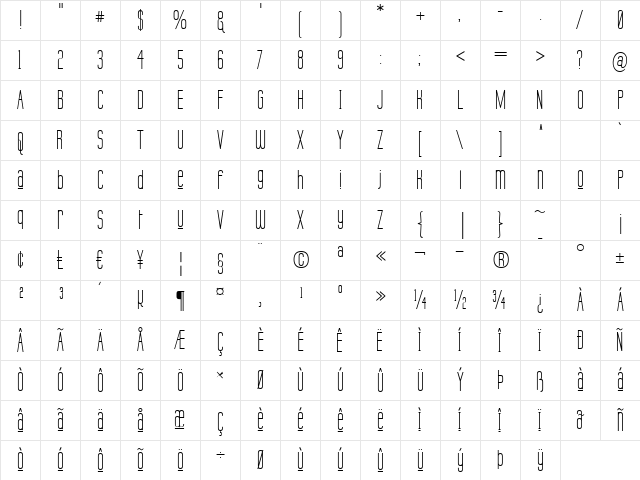
Labtop Unicase Upper Regular
Complete Labtop Unicase Upper Regular glyph index. Displaying only characters natively supported by Labtop Unicase Upper Regular font.
Design Context for Labtop Unicase Upper
Labtop Unicase Upper is a composed and adaptable typeface that performs quietly and consistently across a wide range of design contexts.
Pro Tip: Use Labtop Unicase Upper in both headline and body roles to test its range before committing to a single application.